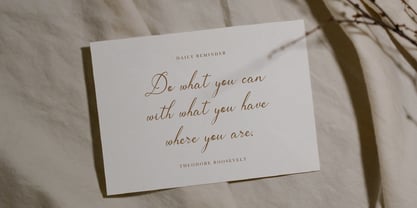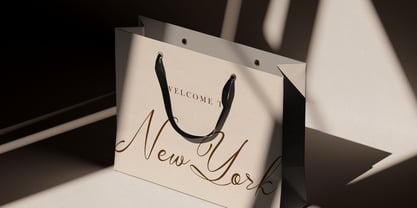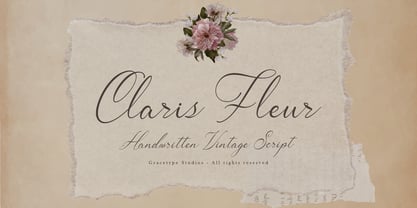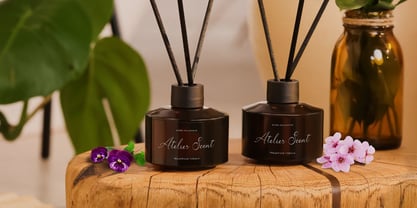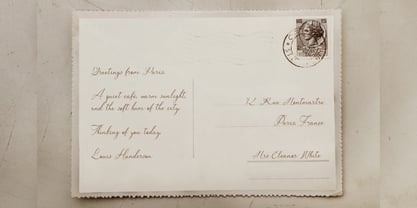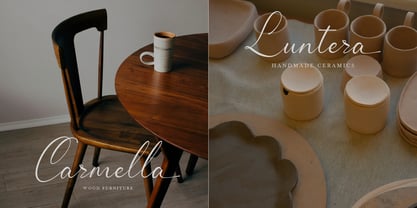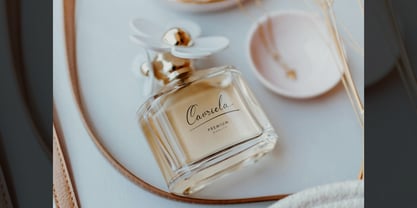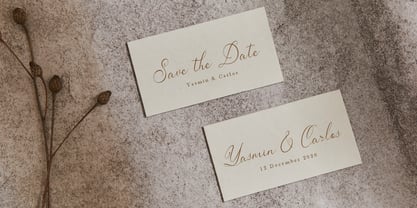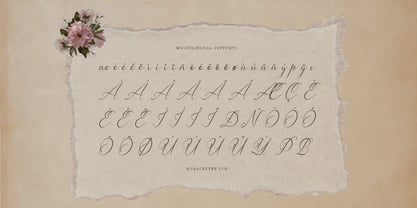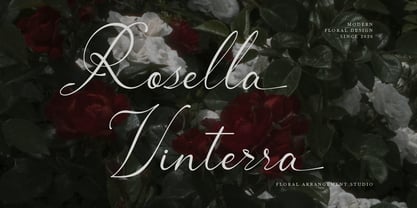
Claris Fleur
Claris Fleur | Handwritten Vintage Script, from Gracetypestudio, suitable for any projects such as: logos, branding projects, homeware designs, product packaging, mugs, quotes, posters, shopping bags, t-shirts, book covers, name card, invitation cards, greeting cards, label, photography, watermark, special events, and all your other lovely projects that need a Script taste.